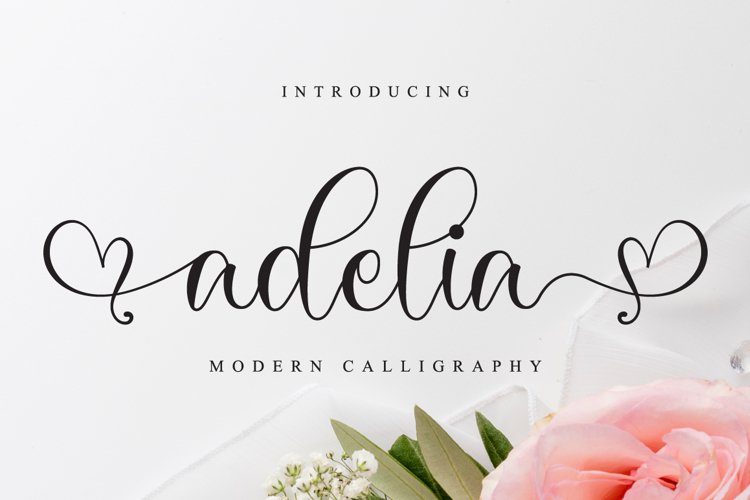
Adelia is a handwritten script font. It is perfect for greeting cards, branding, stationery design, social media, packaging, prints, typographic designs, logos, labels seasonal cards and many more!
Adelia comes with alternates for the lower case letters, a selection of ligatures and swashes.
Adelia